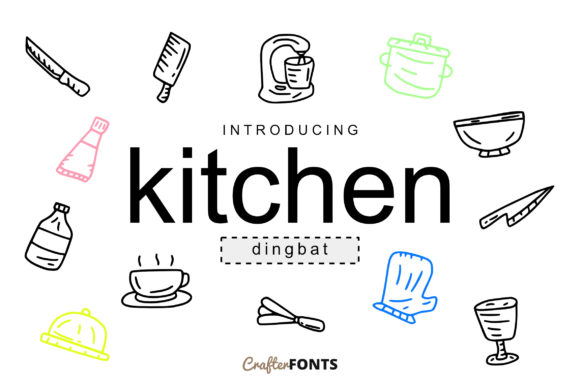
Welcome to the realm of culinary creativity, where Kitchen Doodle Font reigns supreme, transforming your designs into edible masterpieces. This treasure trove of 62 symbols is a feast for the eyes, catering to your every culinary fantasy. From tantalizing tidbits to delectable desserts, Kitchen Doodle Font is the secret ingredient that elevates your designs to mouthwatering heights.
Unleash your inner chef and let your imagination run wild as you adorn your projects with Kitchen Doodle Font's delectable symbols. Create mouthwatering menus that transport your customers to a gastronomic paradise. Design eye-catching logos that evoke the warmth and comfort of a home-cooked meal. Adorn your kitchenware with playful illustrations that bring a smile to every face. With Kitchen Doodle Font, the possibilities are as endless as a chef's repertoire.
Indulge in Kitchen Doodle Font's versatility, a culinary chameleon that adapts to any design landscape. Whether you're crafting elegant invitations for a dinner party or creating whimsical packaging for your homemade delicacies, this font adds a touch of culinary charm that tantalizes the taste buds. Let your designs simmer with creativity as you explore the endless possibilities that Kitchen Doodle Font has to offer.
Elevate your designs to the realm of haute cuisine with Kitchen Doodle Font, the perfect companion for culinary creatives. Its playful symbols dance across your creations, adding a dash of whimsy and a sprinkle of sophistication. Impress your clients with presentations that sizzle with originality. Leave a lasting impression on your customers with branding that exudes a mouthwatering allure. With Kitchen Doodle Font, your designs will be the talk of the town, leaving them craving for more.
Dive into the world of Kitchen Doodle Font today and embark on a culinary adventure like no other. Let your designs simmer with creativity and flavor as you sprinkle a touch of culinary magic into every project. Discover the limitless possibilities that await you as you explore the delectable depths of this extraordinary font. Your designs will be the talk of the town, leaving them craving for more. Bon appétit!